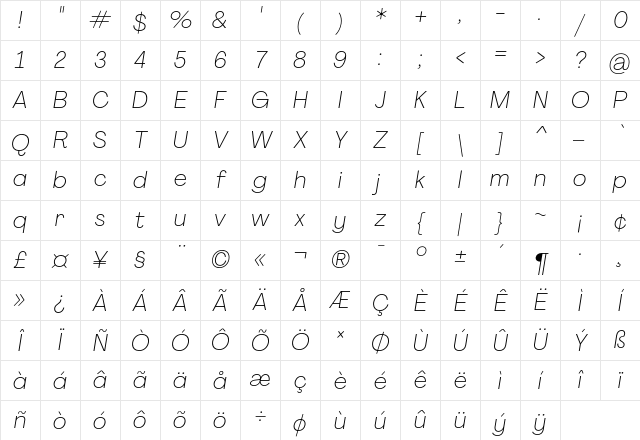
Agrandir Thin Italic
Foundry: Alexander Slobzheninov
Designer: Alexander Slobzheninov
Agrandir Thin Family
Agrandir Thin Italic
Complete Agrandir Thin Italic glyph index. Displaying only characters natively supported by Agrandir Thin Italic font.
Design Context for Agrandir Thin
Agrandir Thin is a composed and adaptable typeface that performs quietly and consistently across a wide range of design contexts. The slanted form adds forward momentum and visual energy. Its slender proportions lend an understated elegance to any composition.
Who designed the Agrandir Thin Italic font?